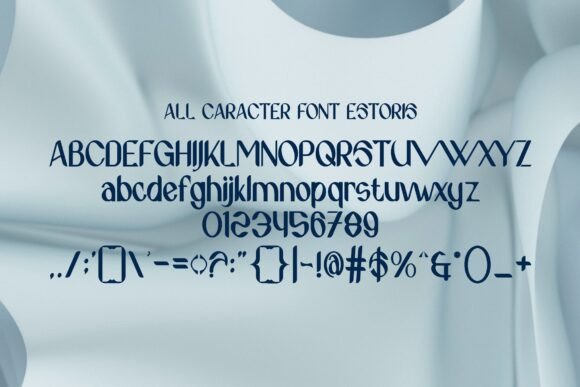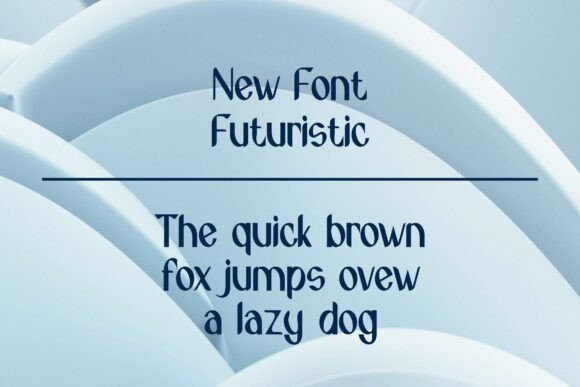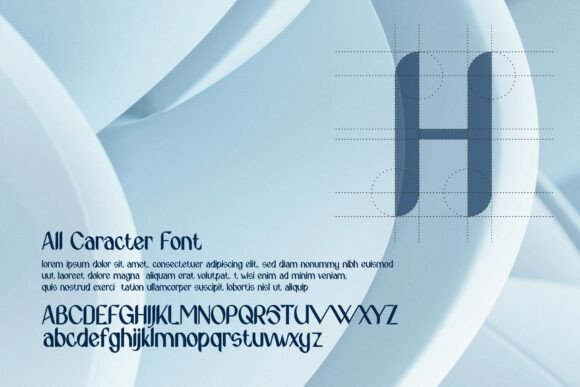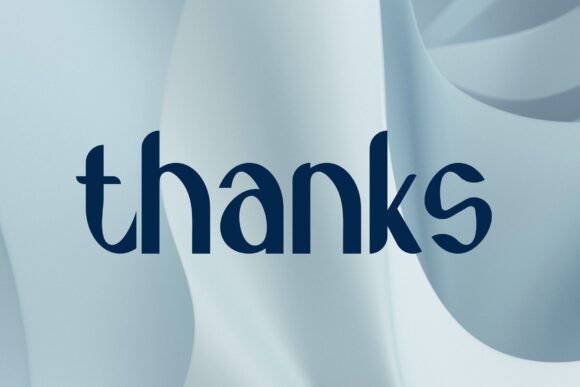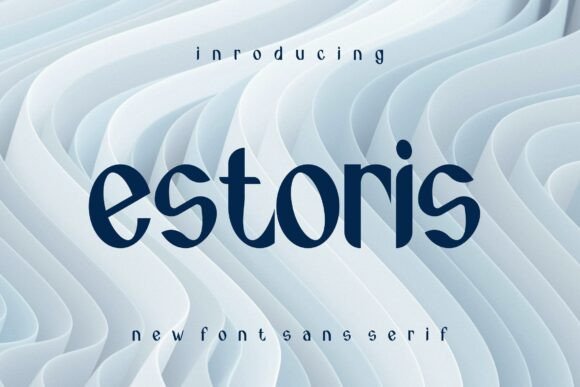
Discover the Charm of Estoris Font: A Sweet and Friendly Sans Serif
Are you tired of using the same old fonts in your designs? Look no further than Estoris Font, a sweet and friendly sans serif font that’s sure to add a touch of personality to your projects. With its natural and unique style, Estoris is incredibly versatile and can be used in a wide range of designs, from modern and trendy to vintage and whimsical.
The Characteristics of Estoris Font
So, what makes Estoris Font so special? For starters, its sans serif design gives it a clean and modern look that’s perfect for designs that need to feel fresh and contemporary. But despite its modern aesthetic, Estoris has a warm and inviting feel that’s hard to resist. Its rounded edges and smooth lines make it feel approachable and friendly, while its unique style ensures that it stands out from more traditional sans serif fonts.
The Benefits of Using Estoris Font
One of the biggest benefits of using Estoris Font is its incredible versatility. Whether you’re designing a logo, a brochure, or a social media graphic, Estoris is a great choice. Its natural and unique style makes it fitting for a large pool of designs, and the only limit is your imagination! Here are just a few ways you can use Estoris Font in your designs:
- Branding and logos: Estoris Font is a great choice for logos and branding materials, thanks to its modern and yet approachable feel. It’s perfect for businesses that want to appear friendly and welcoming.
- Headings and titles: Estoris Font is also a great choice for headings and titles, thanks to its bold and eye-catching design. It’s perfect for adding a touch of personality to your designs.
- Body text: While Estoris Font is bold and eye-catching, it’s also easy to read, making it a great choice for body text. It’s perfect for designs that need to communicate a lot of information in a clear and concise way.
Why Designers and Crafters Love Estoris Font
Estoris Font has quickly become a favorite among designers and crafters, and it’s easy to see why. Here are just a few reasons why Estoris Font is a top choice:
- Unique style: Estoris Font has a unique style that’s hard to find in other fonts. Its natural and friendly feel makes it stand out from more traditional sans serif fonts.
- Easy to read: Despite its bold and eye-catching design, Estoris Font is easy to read, making it perfect for designs that need to communicate a lot of information.
- Versatile: Estoris Font is incredibly versatile, making it perfect for a wide range of designs, from modern and trendy to vintage and whimsical.
How to Use Estoris Font in Your Designs
Using Estoris Font in your designs is easy. Here are a few tips to get you started:
- Experiment with different sizes: Estoris Font looks great in a variety of sizes, from large headings to smaller body text. Experiment with different sizes to find the one that works best for your design.
- Pair it with other fonts: Estoris Font pairs well with a variety of other fonts, including serif fonts and script fonts. Experiment with different pairings to find the one that works best for your design.
- Use it in different colors: Estoris Font looks great in a variety of colors, from bold and bright to soft and pastel. Experiment with different colors to find the one that works best for your design.
In conclusion, Estoris Font is a sweet and friendly sans serif font that’s perfect for designers and crafters who want to add a touch of personality to their projects. Its natural and unique style makes it incredibly versatile, and the only limit is your imagination! Whether you’re designing a logo, a brochure, or a social media graphic, Estoris Font is a great choice. So why not give it a try and see what you can create?